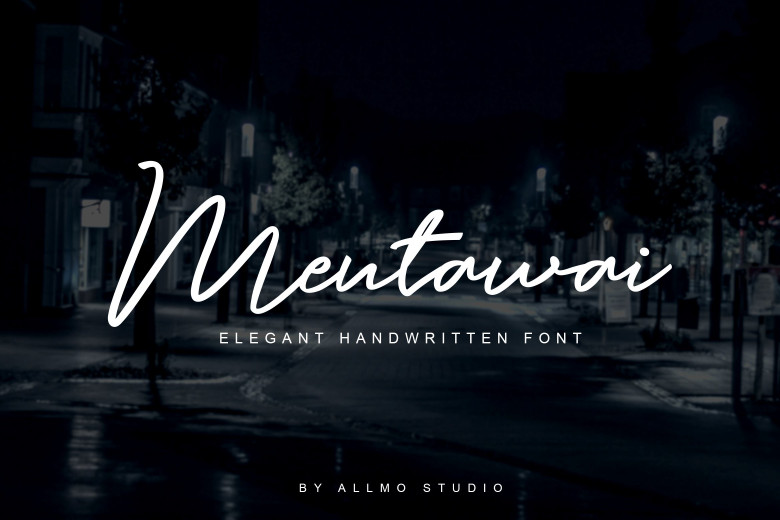
Mentawai Signature Font
Mentawai Signature Font – Free Demo
Hello Type Lovers… The best free font package today is a contemporary script font. Introducing Mentawai Font! Mentawai designed by Allmo Studio. Mentawai is a stylish signature script that’s sleek and professional. Perfect for Signature, logos, prints, invites, and more! It comes with a full set of alternate characters both upper case and lowercase. Mix-n-match and give your designs that eye-grabbing aesthetic everyone wants.